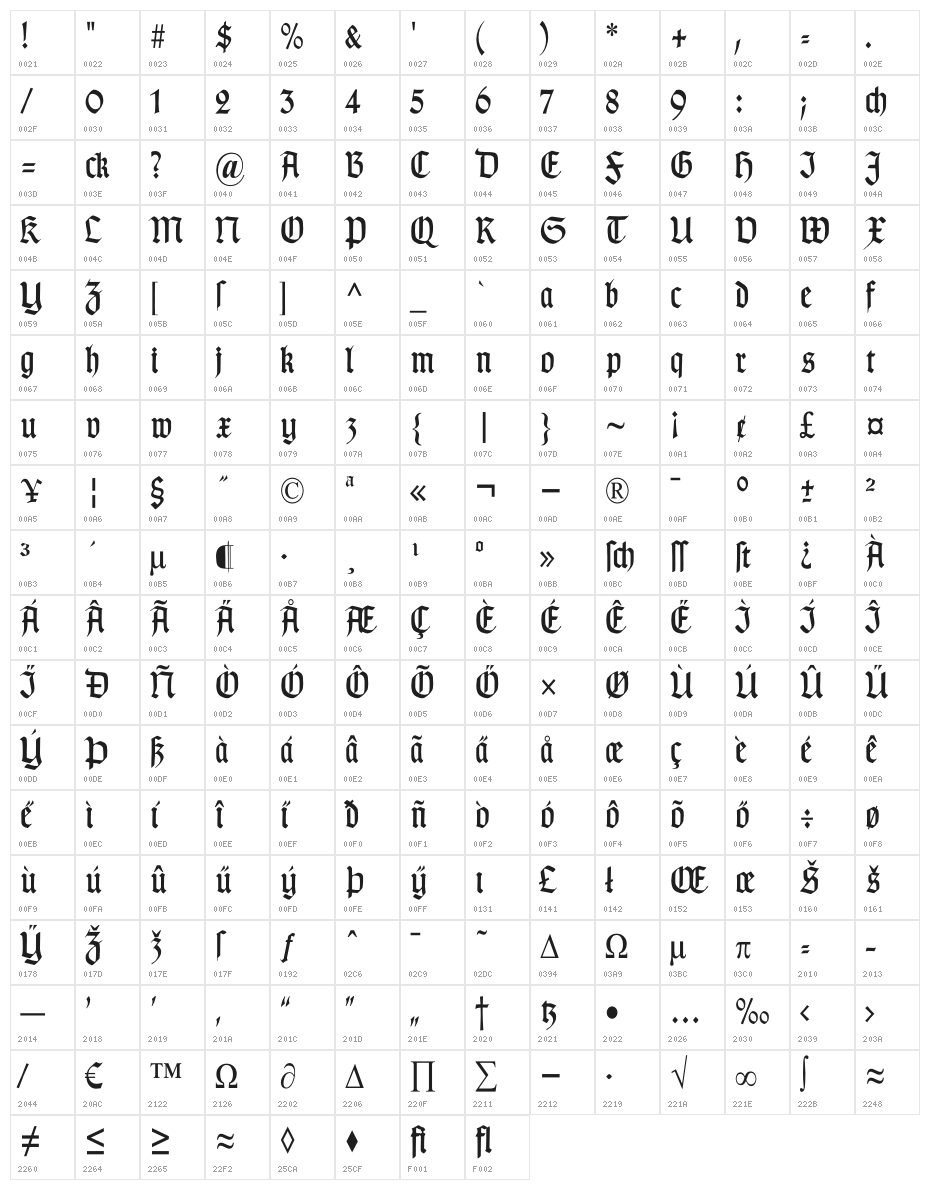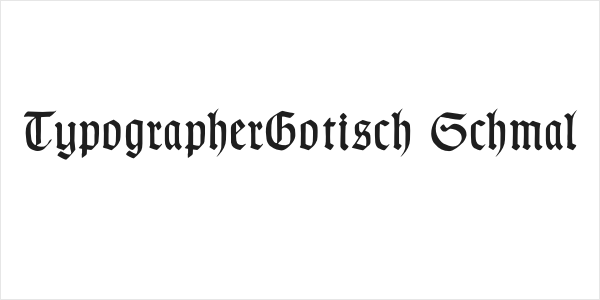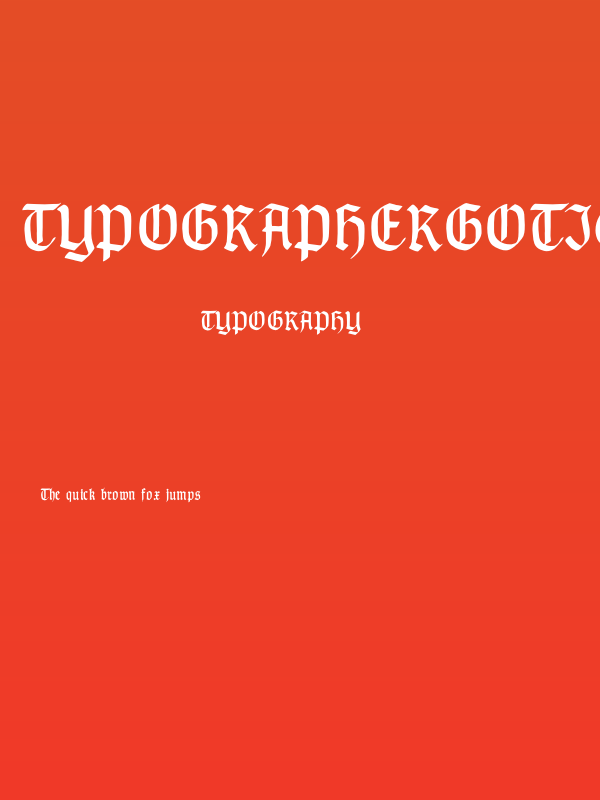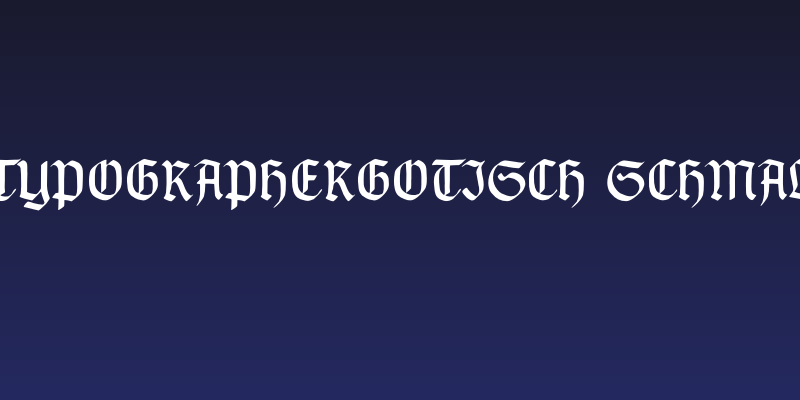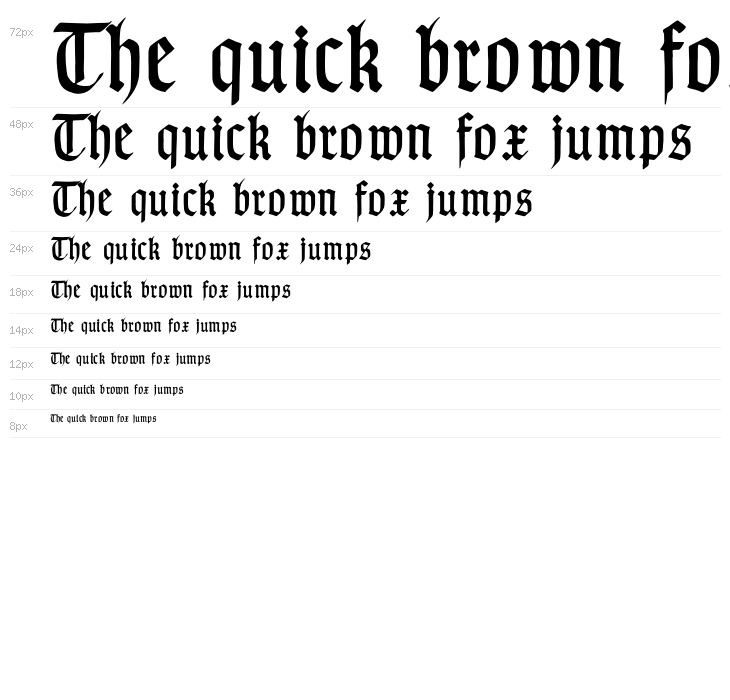
TypographerGotisch Schmal Font
TypographerGotisch Schmal Description
This font embodies the traditional elegance and intricate detailing of classic blackletter styles. It features sharp, angular lines and a distinct medieval aesthetic, reminiscent of Gothic script used in historical manuscripts. The uppercase letters are bold and commanding, while the lowercase letters maintain a consistent flow with a slightly narrower appearance. Numbers and special characters are crafted with the same attention to detail, ensuring a cohesive look across all elements. The overall design is both decorative and functional, making it suitable for projects that require a touch of historical or formal flair.
| Proposed Projects | Ideal for historical documents, wedding invitations, book covers, and branding that requires a traditional or formal touch. |